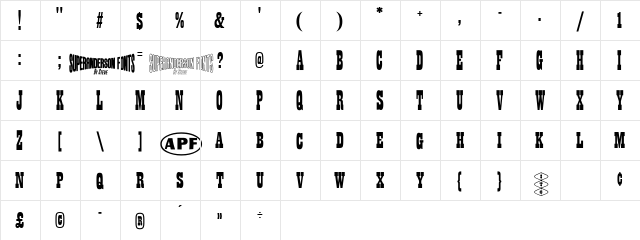
Anderson Thunderbirds Are GO! Regular
Design Context for Anderson Thunderbirds Are GO! Typeface
Anderson Thunderbirds Are GO! is a composed and adaptable typeface that performs quietly and consistently across a wide range of design contexts.